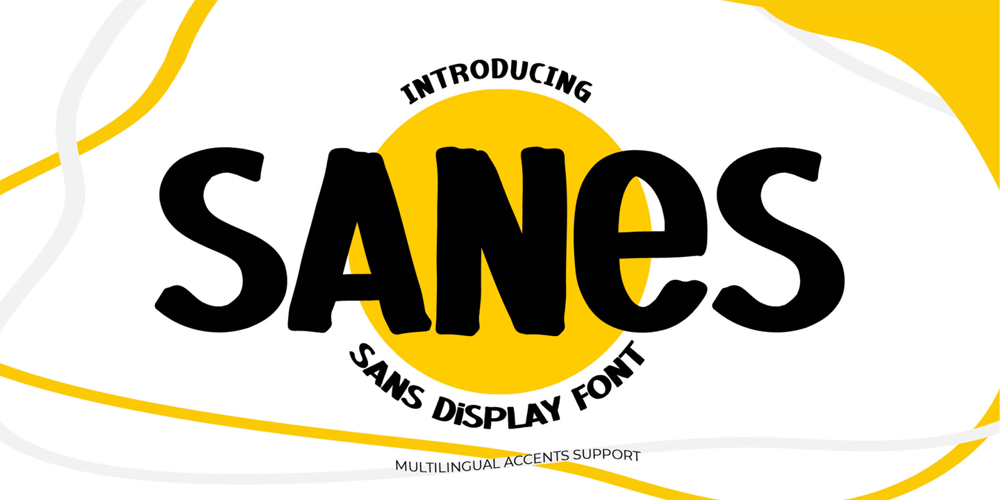
Sanes Font Family was designed by Abdul Malik Wisnu, Anang Fibriyanto and published by Gassstype. Sanes contains 1 styles and family package options. Introducing SANES is Sans Display Font,This Font Authentic that is written casually and quickly. Then scanned and carefully drawn into vector format.This handmade font will make your design has a beautiful natural touch for each details. It is perfect for any design project as Invitation,logo, book cover, craft or any design purposes.That is why SANES has charming, authentic and relaxed characteristic more natural look to your text with a more natural look to your text.